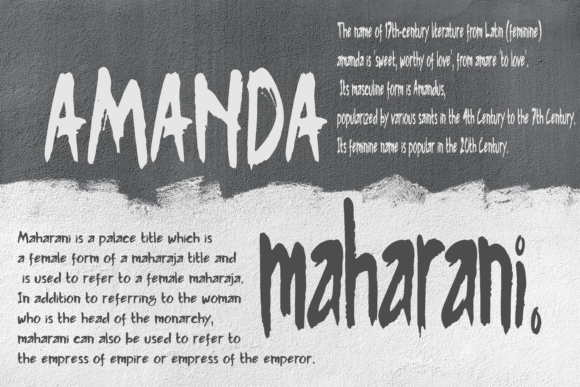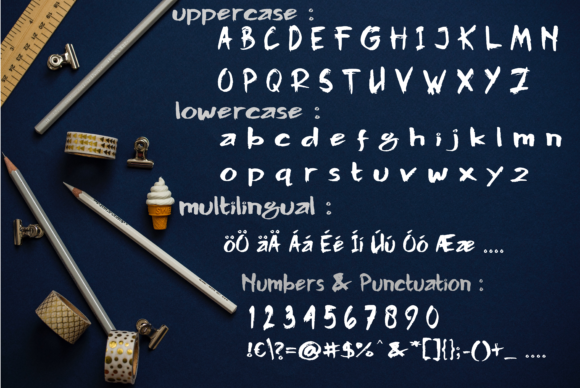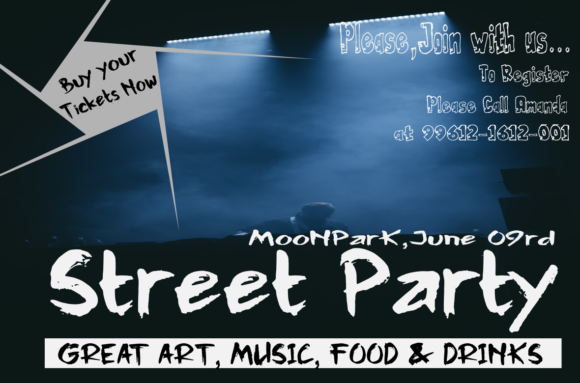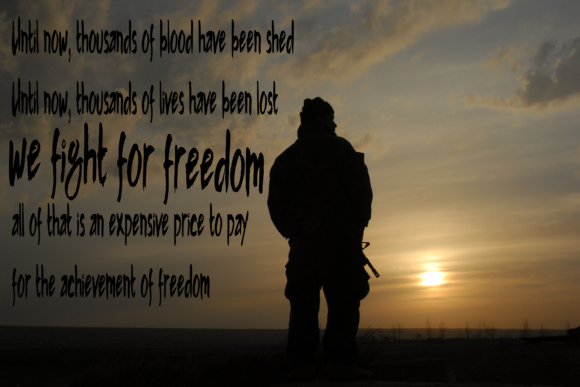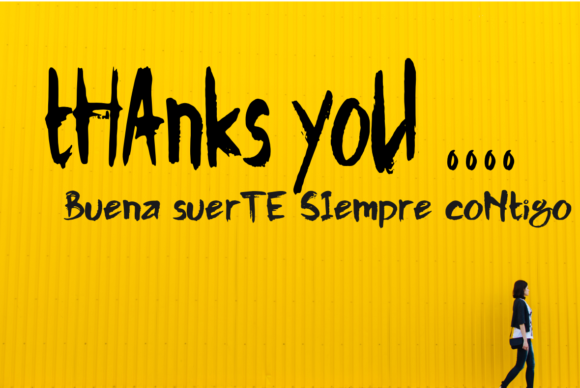
Amanda Font: Unleash Your Creativity with this Powerful Brush Font
Are you tired of using the same old fonts in your designs? Look no further! Introducing Amanda Font, a rough and strong brush font that’s sure to add a powerful vibe to your creations. With its unique look and feel, Amanda is the perfect choice for designers and crafters who want to make a statement.
The Power of Amanda Font
Amanda Font is a brush font that’s designed to inspire creativity and add a touch of ruggedness to your designs. Its rough and strong texture gives it a distinctive look that’s perfect for creating bold and eye-catching designs. Whether you’re working on a logo, a poster, or a social media graphic, Amanda Font is sure to make your design stand out.
Unique Features of Amanda Font
- Rough and Strong Texture: Amanda Font has a unique rough and strong texture that gives it a powerful vibe.
- Brush Font Style: Amanda is a brush font that’s designed to mimic the look of hand-painted letters.
- Perfect for Bold Designs: With its bold and eye-catching look, Amanda Font is perfect for creating designs that make a statement.
Who Can Use Amanda Font?
Amanda Font is perfect for designers and crafters who want to add a touch of ruggedness to their designs. Here are some examples of who can use Amanda Font:
- Graphic Designers: Graphic designers can use Amanda Font to create bold and eye-catching designs for their clients.
- Crafters: Crafters can use Amanda Font to create unique and personalized designs for their handmade products.
- Small Business Owners: Small business owners can use Amanda Font to create bold and eye-catching designs for their marketing materials.
Tips for Using Amanda Font
Here are some tips for using Amanda Font:
- Use it for Headlines: Amanda Font is perfect for creating bold and eye-catching headlines.
- Pair it with Other Fonts: Amanda Font can be paired with other fonts to create a unique and interesting look.
- Experiment with Colors: Amanda Font looks great in bold and bright colors, so don’t be afraid to experiment.
Amanda Font is a powerful and unique brush font that’s perfect for designers and crafters who want to add a touch of ruggedness to their designs. With its rough and strong texture and bold look, Amanda Font is sure to make your designs stand out. So why not give it a try and see what amazing designs you can create?
Get Inspired by Amanda Font
Here are some amazing designs that you can create with Amanda Font:
- Bold Logos: Create bold and eye-catching logos for your clients or your own business.
- Eye-Catching Posters: Create posters that grab attention and make a statement.
- Social Media Graphics: Create social media graphics that stand out and get noticed.
With Amanda Font, the possibilities are endless. So why wait? Get inspired by its unique look and start creating amazing designs today!